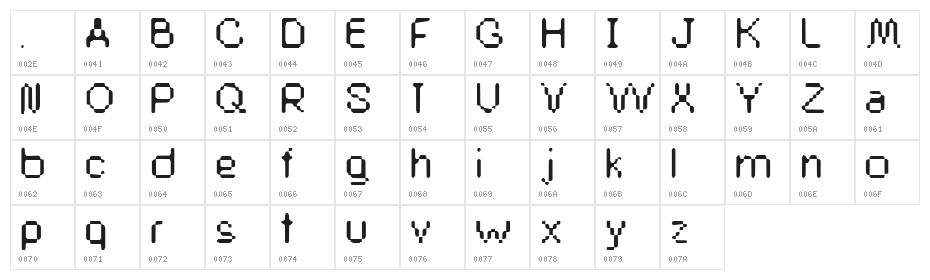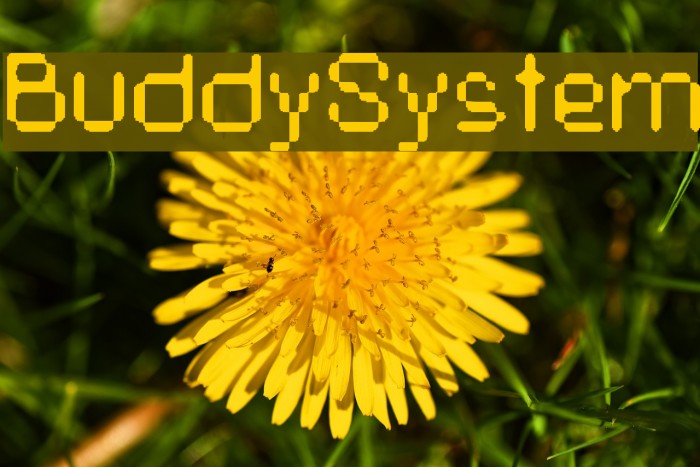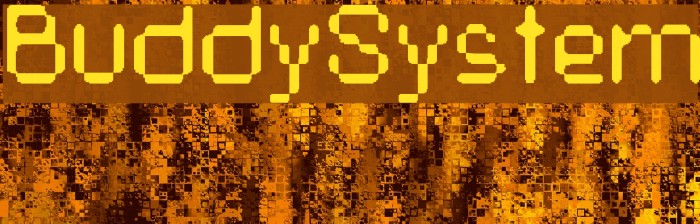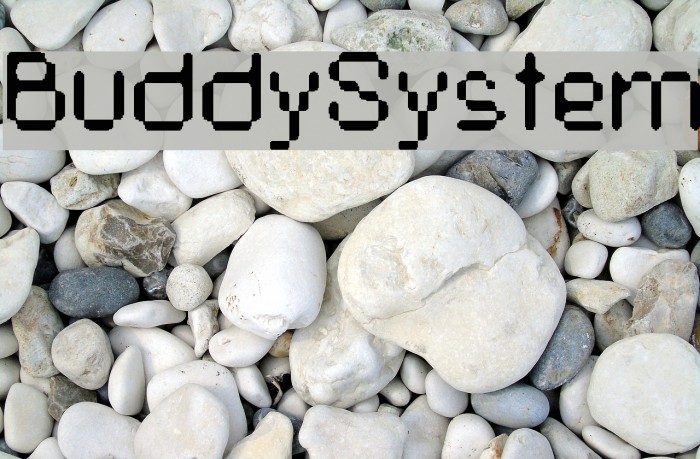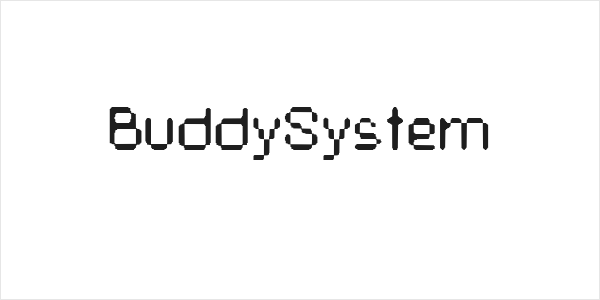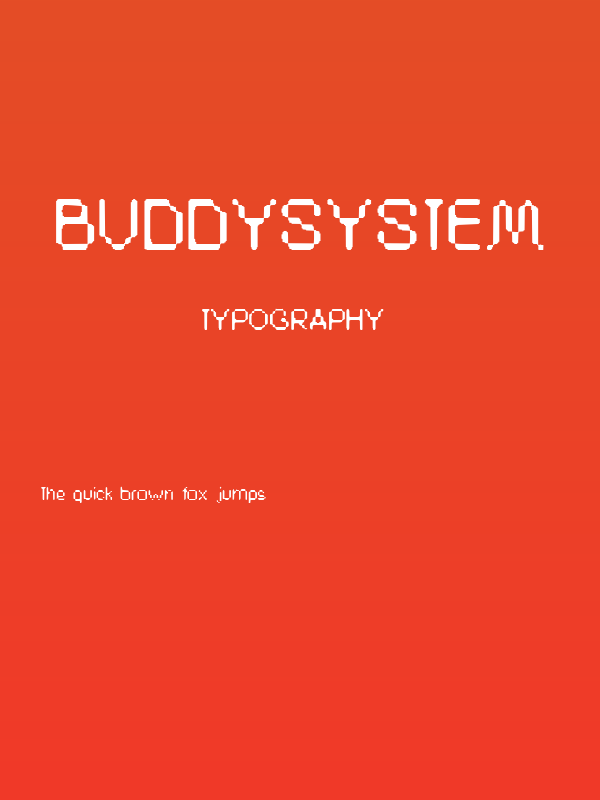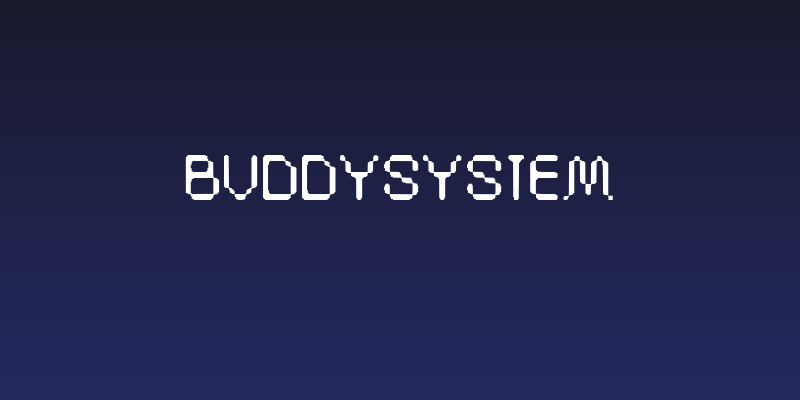
BuddySystem Font
BuddySystem Description
This font features a unique, pixelated style that evokes a retro, digital aesthetic reminiscent of early computer graphics. The characters are constructed with a blocky, grid-like structure, giving them a distinct, geometric appearance. The uppercase and lowercase letters maintain a consistent height, with the lowercase letters slightly more rounded. The numbers and special characters follow the same pixelated theme, ensuring uniformity across all glyphs. This font's design is both playful and nostalgic, making it ideal for projects that aim to capture a vintage digital feel.
| Use Case | Logos, Headlines, Digital Art |
| Proposed Projects | Ideal for video game design, retro-themed posters, digital art projects, and tech-related branding. |